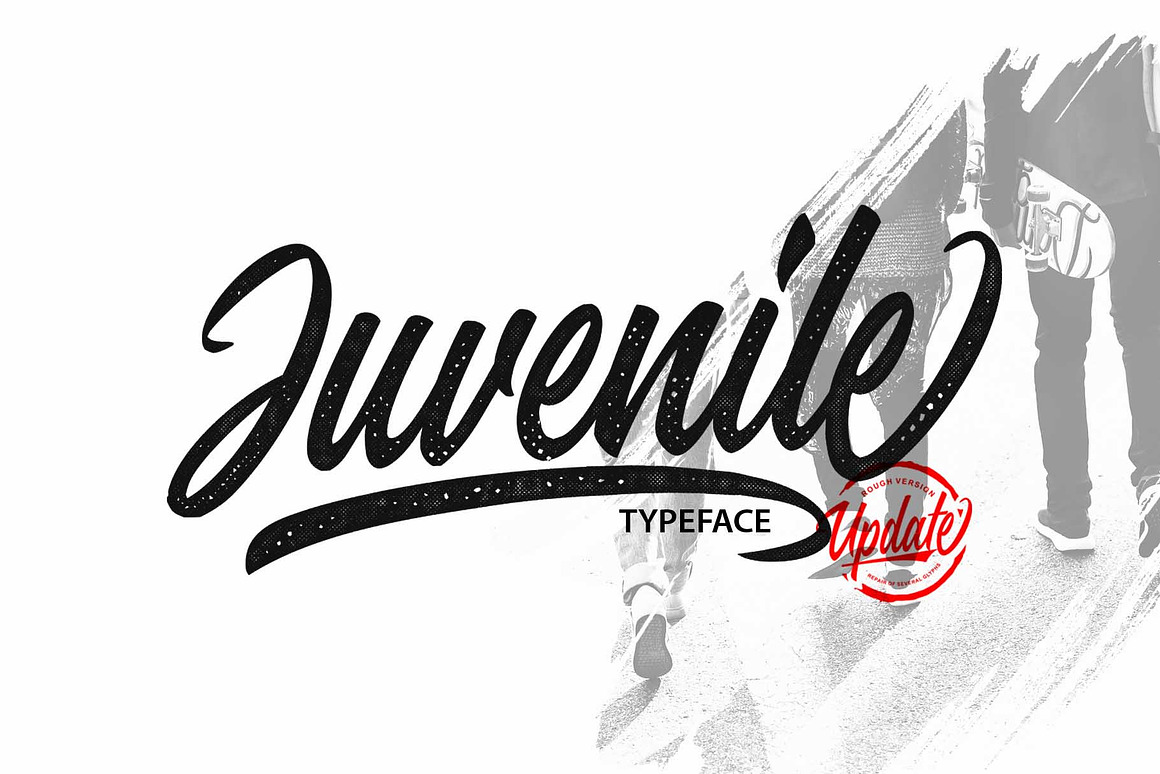
Juvenile Typeface Font
Juvenile Typeface Font is perfect for youthful fashion brands, teen-focused entertainment venues, young adult publishing houses, energetic youth organizations, vibrant student services, and dynamic coming-of-age campaigns. Its spirited character makes it ideal for teen lifestyle magazines, youth sports programs, young adult education platforms, energetic music festivals, vibrant youth centers, and any project requiring youthful energy with teenage authenticity and dynamic young adult appeal.
This font is exciting because it captures the boundless energy and authentic spirit of youth while delivering exceptional functionality for brands seeking to connect with younger audiences and celebrate the vibrancy of teenage culture and young adult experiences. The dynamically crafted letterforms pulse with the same energy and optimism that defines youth, creating typography that feels genuinely youthful and resonates with audiences who embrace change, growth, and unlimited possibilities.
The Juvenile Typeface Font family typically includes Light, Regular, Medium, and Bold weights with youthful alternates, energetic ligatures, and dynamic elements that enhance its spirited personality. This comprehensive collection enables youth-focused professionals to create authentic brand systems that maintain youthful credibility while offering flexibility for various teen applications requiring both energetic appeal and contemporary young adult market positioning.